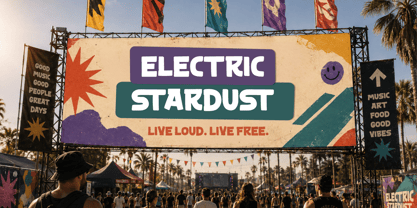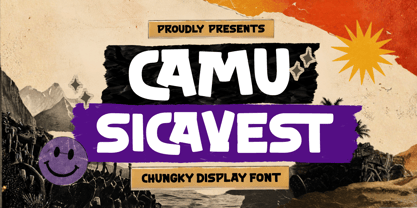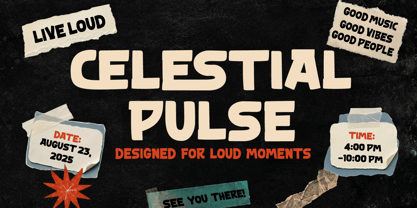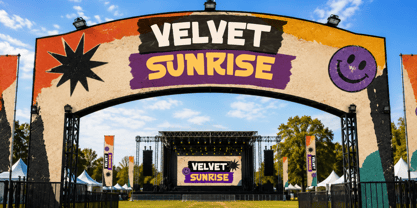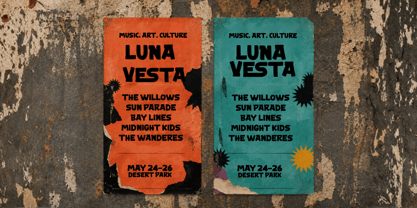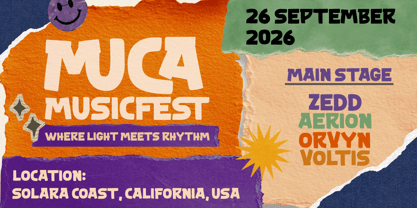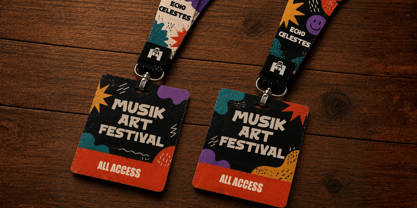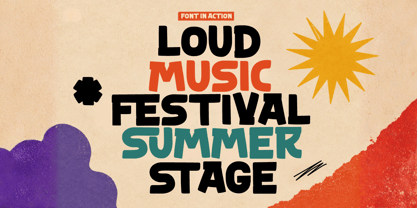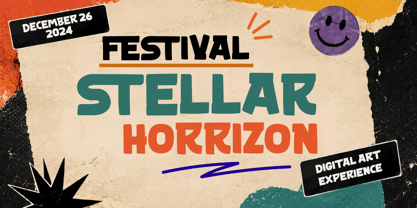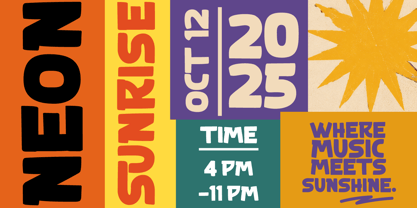
Camu Sicavest
La familia tipográfica Camu Sicavest fue diseñada por Murozakul Akhsan y publicada por Trabas Kriya. Camu Sicavest contiene 1 estilos. Más información sobre esta familia
Camu Sicavest is a bold and playful chunky display font designed to make headlines instantly stand out. With its strong, compact letterforms and distinctive personality, this typeface brings an energetic visual impact to music festival artwork, concert posters, event branding, party flyers, promotional campaigns, and creative summer designs.
Its eye-catching style is ideal for creating memorable event titles, artist lineups, stage graphics, merchandise, social media campaigns, tickets, banners, and advertising materials. Whether you're designing a vibrant music festival identity or a modern promotional campaign, Camu Sicavest adds a confident and youthful touch that helps your typography grab attention.